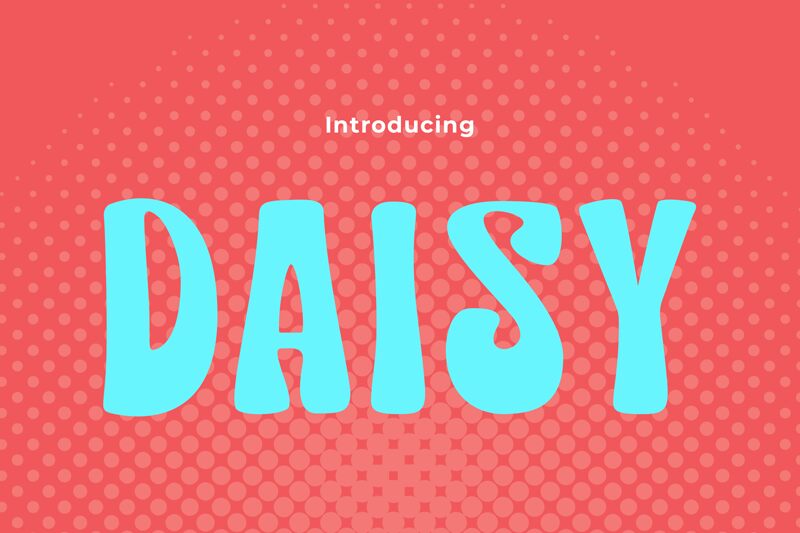
Daisy font by Pinisiart is a free groovy font inspired by the bold and vibrant styles of the ‘70s. Despite its heavy-weight structure—with a design as bold as can be—Daisy manages to look quite approachable with rounded and friendly letterforms. The design is informal and youthful which adds a captivating layer of vitality and character to your designs.
Use Daisy to create groovy branding and packaging labels. It is also well-suited for use in designing branding designs, business cards, book covers, brochures, social media posts, website titles, and blog headers. The energetic and eye-catching font is guaranteed to draw the audience’s attention.